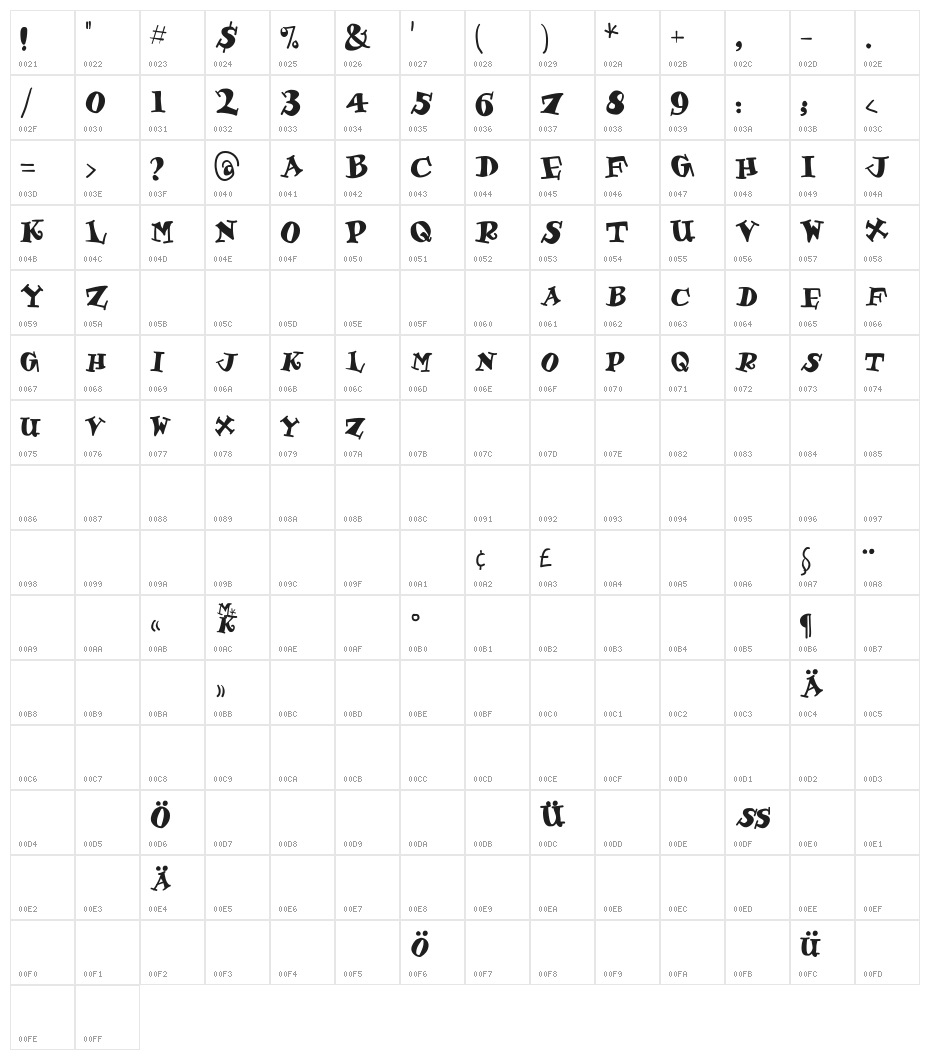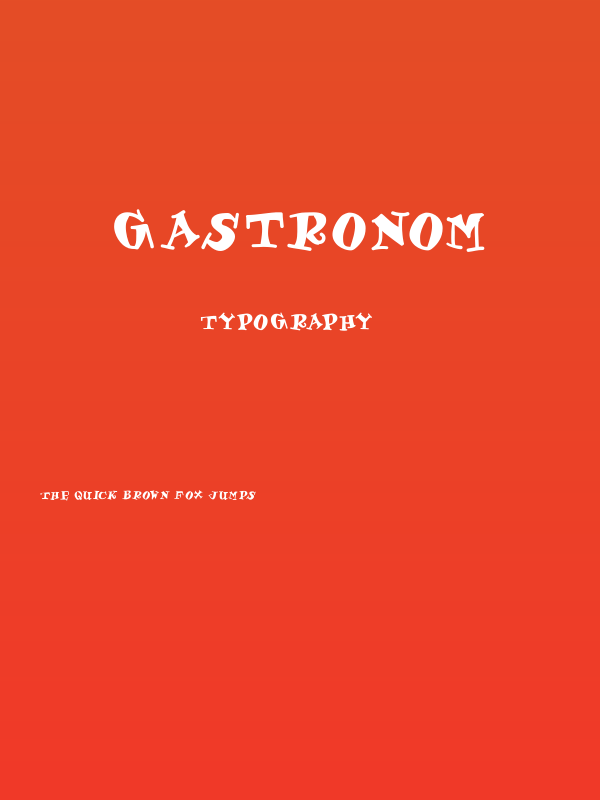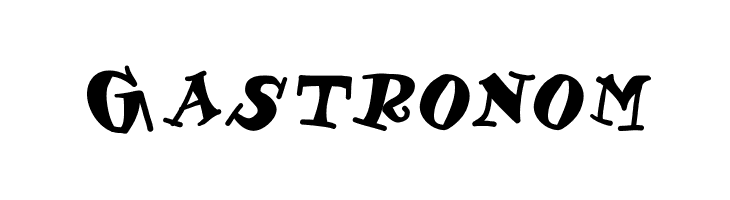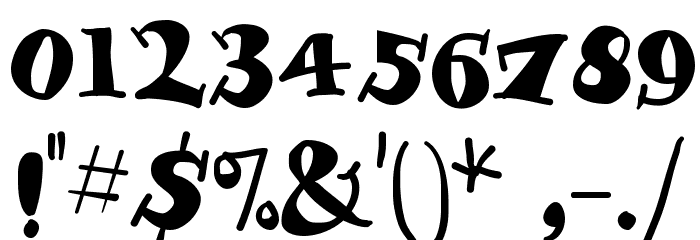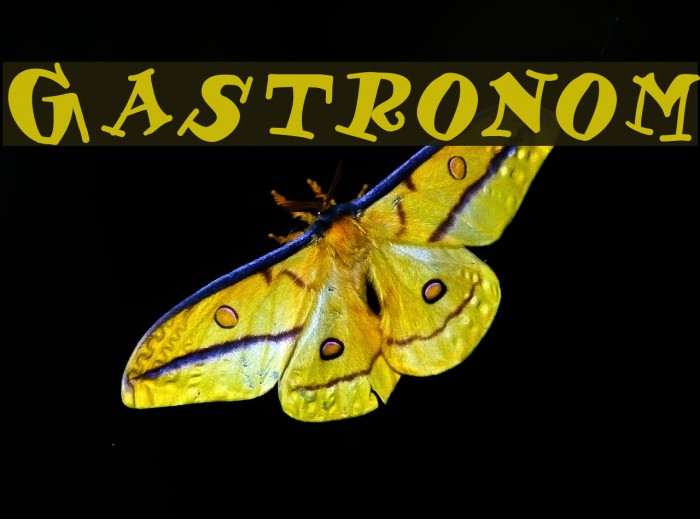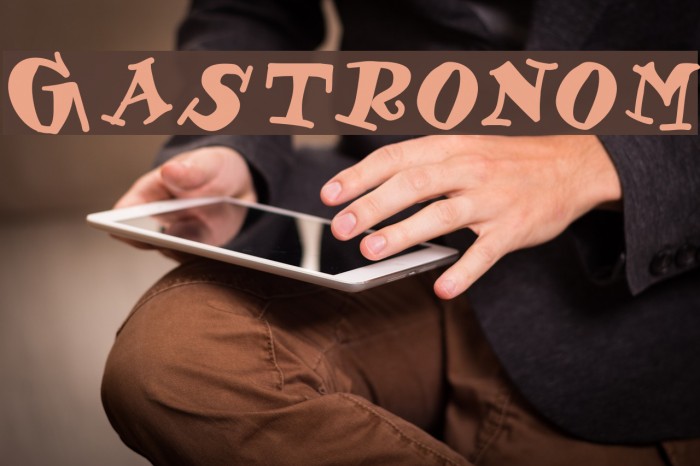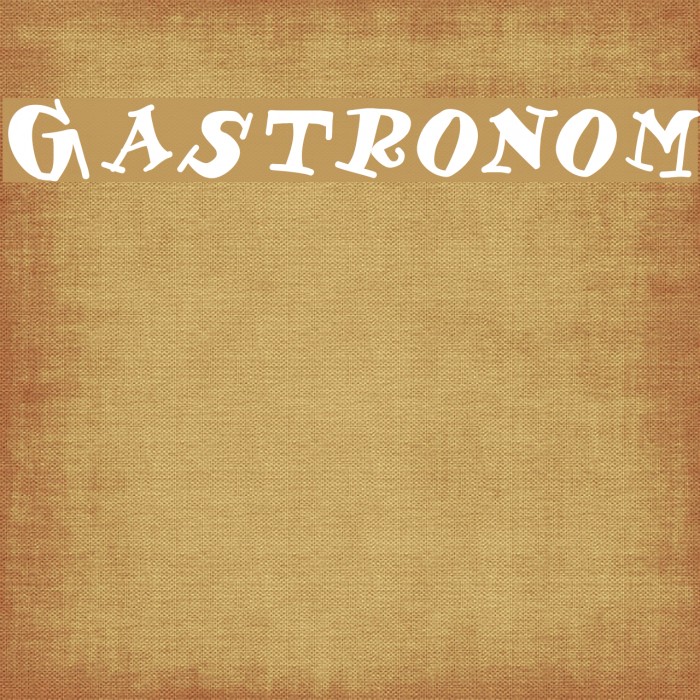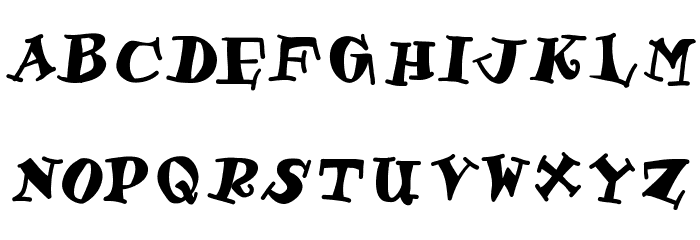
Gastronom Font
Gastronom Description
This font features a playful and whimsical style with a hand-drawn appearance. The characters are bold and slightly irregular, giving them a dynamic and lively feel. The uppercase letters have a unique flair, with exaggerated serifs and varying stroke widths that add to the font's quirky personality. The lowercase letters maintain the same playful aesthetic, with some characters having distinctive loops and curves. The numerals are bold and consistent with the overall style, making them easily readable while retaining the font's distinctive character. The special characters are creatively designed, matching the font's energetic and fun vibe. This font is perfect for projects that require a touch of creativity and individuality.
| Overall Style | Playful, Whimsical |
| Proposed Projects | Ideal for children's books, creative posters, playful branding, and artistic invitations. |